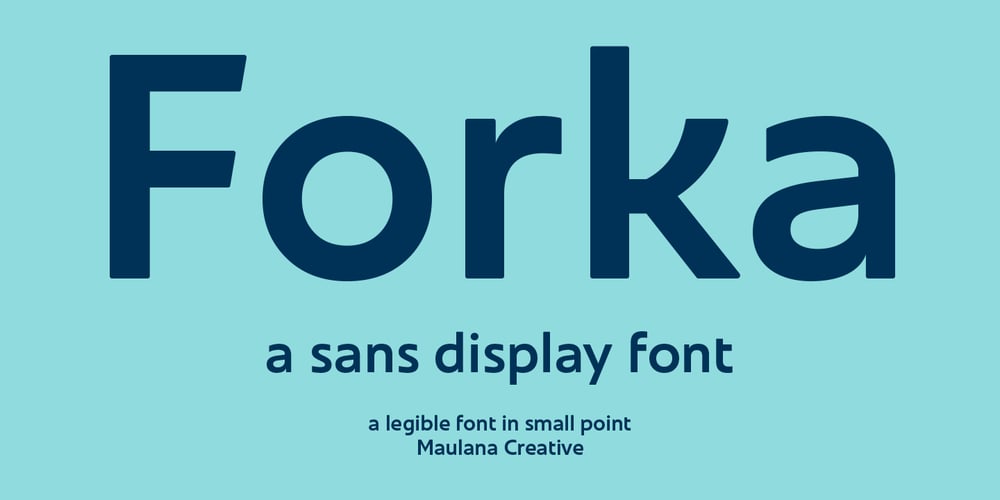
MC Forka Font Family was designed by Gilang Maulana and published by Maulana Creative. MC Forka contains 1 styles and family package options. Forka is a minimal modern fun sans serif font. With medium low contrast stroke, fun character with a bit of ligatures and alternates. To give you an extra creative work. Forka font support multilingual more than 100+ language. This font is good for logo design, Social media, Movie Titles, Books Titles, a short text even a long text letter and good for your secondary text font with script or serif. Make a stunning work with Forka font. Cheers, Maulana Creative